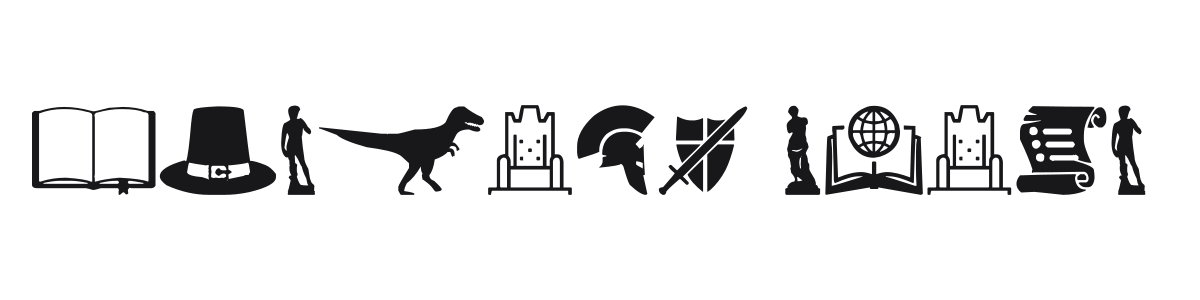
History Icons
History Icons is a dingbat font by Woodcutter packed with bold silhouette symbols spanning ancient history, classical antiquity, and the medieval world. Roman helmets, Greek columns, sailing ships, scrolls, dinosaurs, and laurel wreaths sit side by side as crisp, high-contrast pictograms. The consistent solid-fill style makes the icons versatile for everything from editorial illustration to game UI and educational materials.